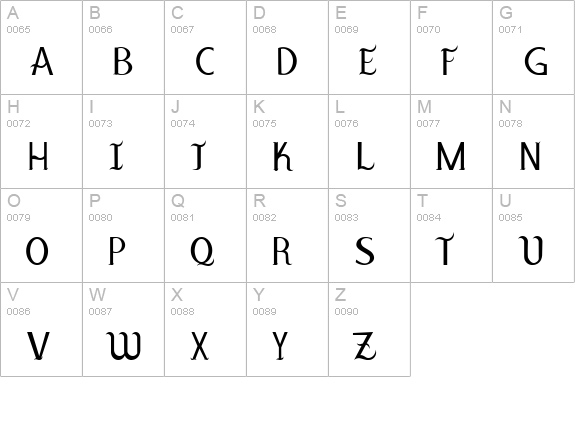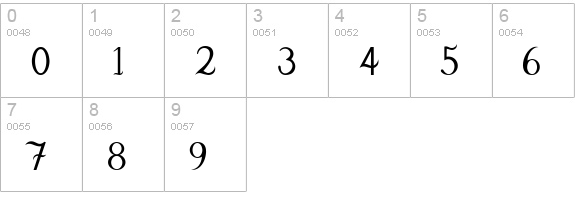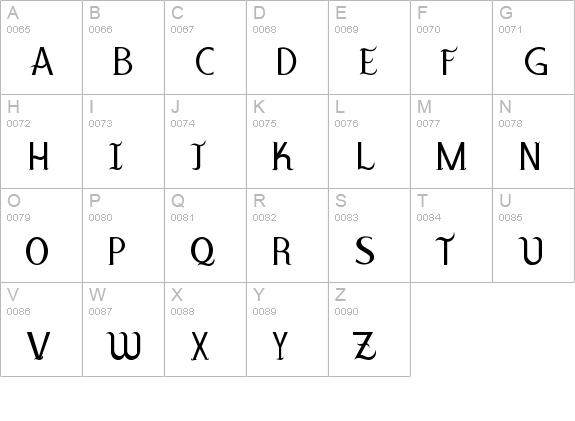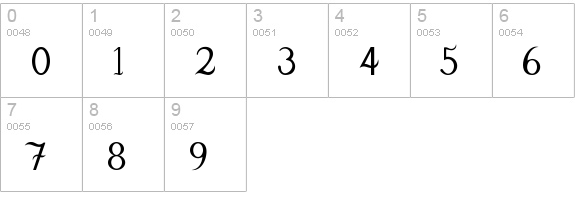
Ipanema Secco is a stunningly elegant font that exudes sophistication and style. Its sleek and modern design makes it the perfect choice for a wide range of projects, from branding and advertising to invitations and posters. This font features clean lines and smooth curves, giving it a timeless and versatile quality. It effortlessly combines both classic and contemporary elements, making it a truly unique and eye-catching typeface. Ipanema Secco is free to download, allowing you to effortlessly incorporate it into your creative endeavors without any cost constraints. It can be freely found and downloaded at FontsMarket.com, where you can explore a vast collection of high-quality fonts for every design need. Whether you're working on a professional project or simply adding a touch of elegance to your personal creations, Ipanema Secco is sure to captivate and inspire. Its versatility and beauty make it a must-have font for designers and creatives alike. With Ipanema Secco, you have the freedom to create stunning visuals and express your unique style. Embrace the elegance and sophistication of this font and elevate your designs to new heights. Download Ipanema Secco for free at FontsMarket.com and start creating exceptional designs today.